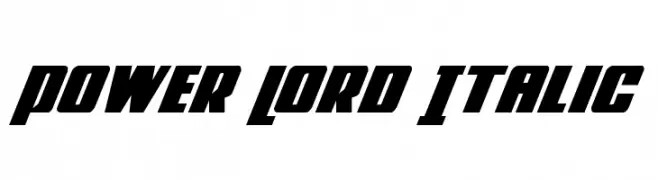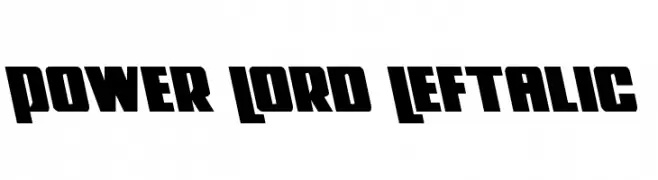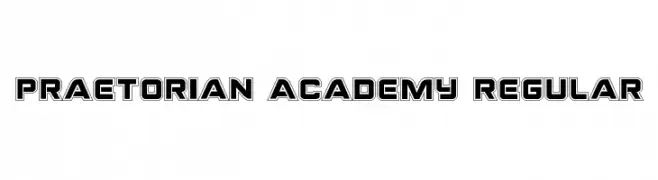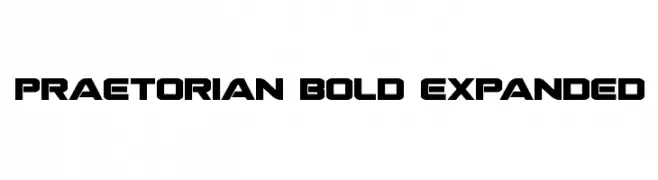
A bold, italic font with angular lines and a dynamic, modern style.
A bold, left-slanted font with high contrast and tight spacing, perfect for impactful designs.
A bold, blocky font with a modern and powerful design.
A bold, italicized font with angular, dynamic characters.
A bold, 3D italic font with outlined characters and a futuristic style.
A bold, 3D geometric font with a modern, futuristic style.
A bold, italicized font with outlined characters for a modern and dynamic look.
A bold, geometric font with outlined characters and a modern, authoritative style.
A bold, geometric font with a modern and commanding presence.
A bold, expanded font with strong geometric shapes and wide letterforms.